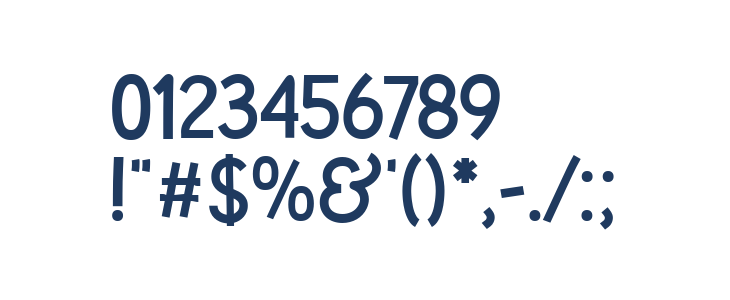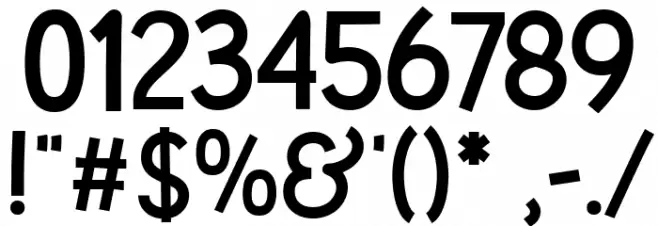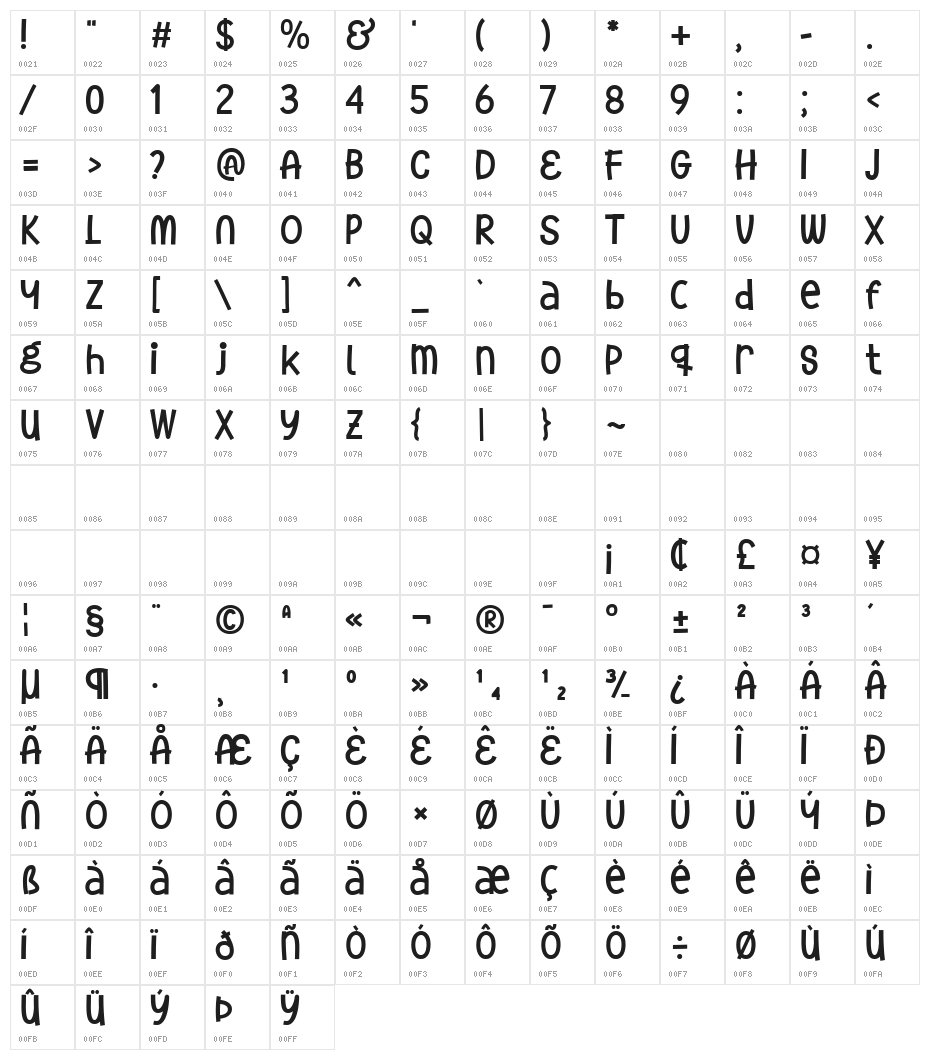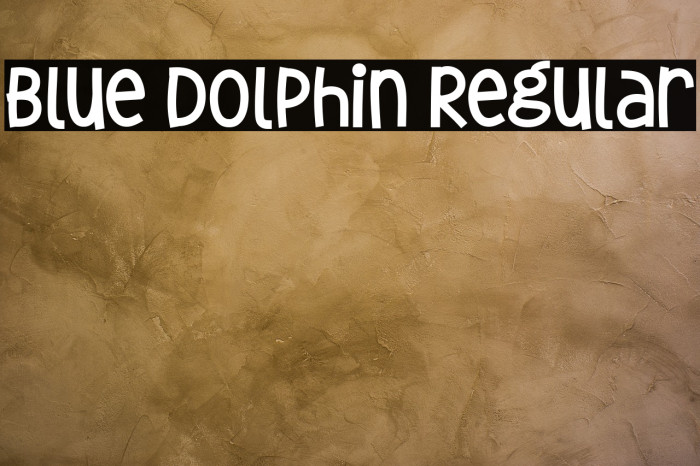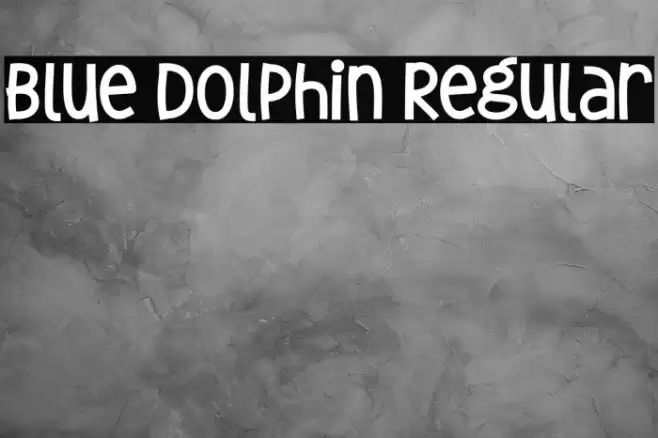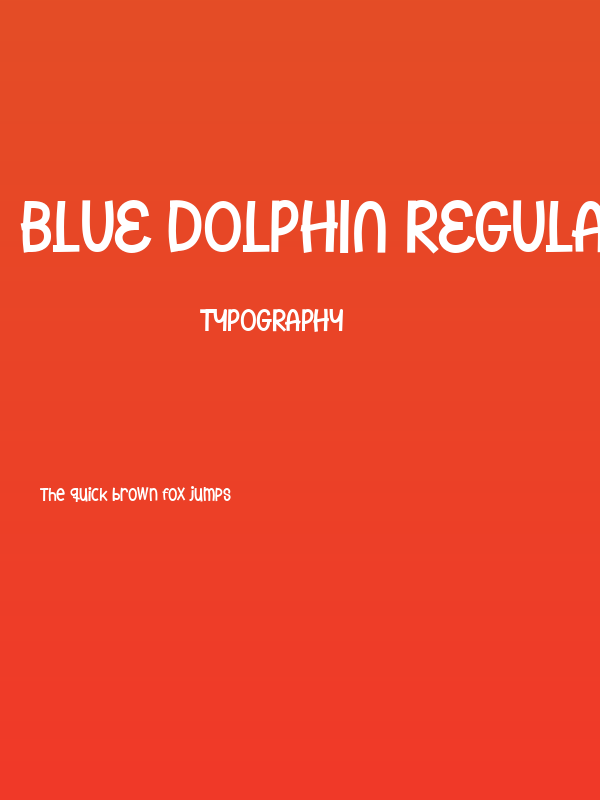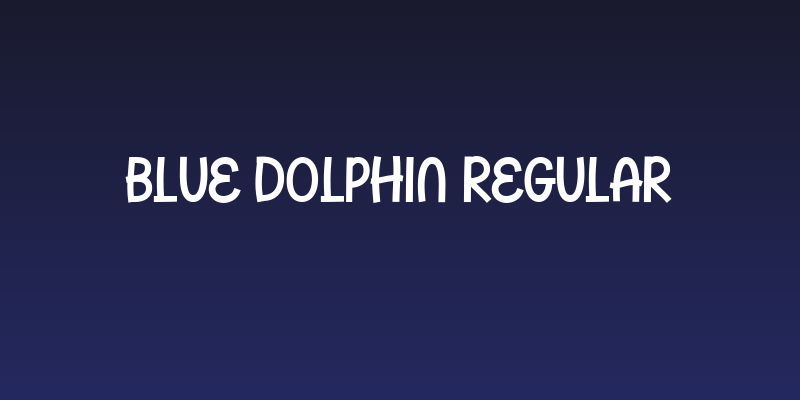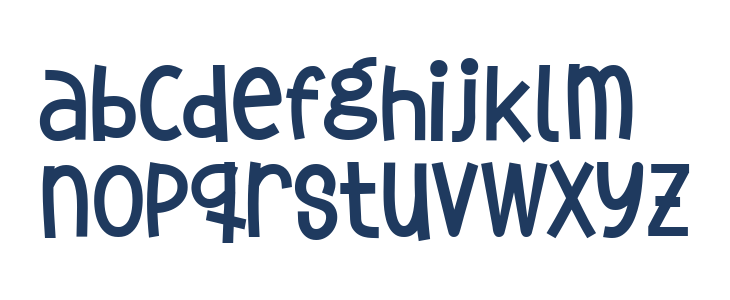
Blue Dolphin Regular Font
Blue Dolphin Regular Description
This playful and whimsical font features a unique blend of rounded and angular elements, creating a lively and engaging appearance. The characters are bold and slightly irregular, giving them a hand-drawn feel that adds personality and charm. The uppercase letters are tall and narrow, while the lowercase letters maintain a consistent height, contributing to a cohesive look. The numbers and special characters follow the same playful style, making this font versatile for various creative applications. Its distinct style makes it suitable for projects that require a fun and informal touch.